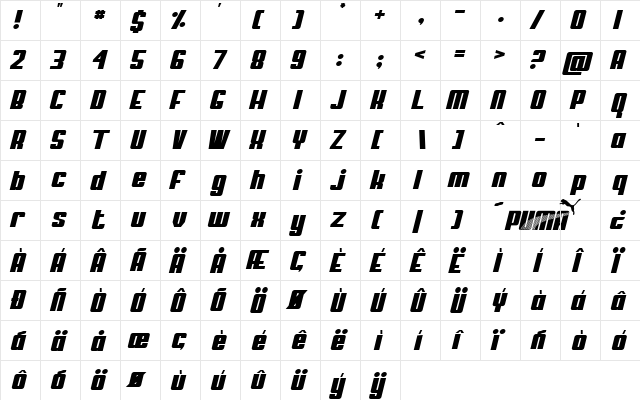
My Puma Oblique Regular
Design Context for My Puma Oblique Typeface
My Puma Oblique is a composed and adaptable typeface that performs quietly and consistently across a wide range of design contexts. The dynamic lean of this cut emphasises speed and emphasis in any layout.